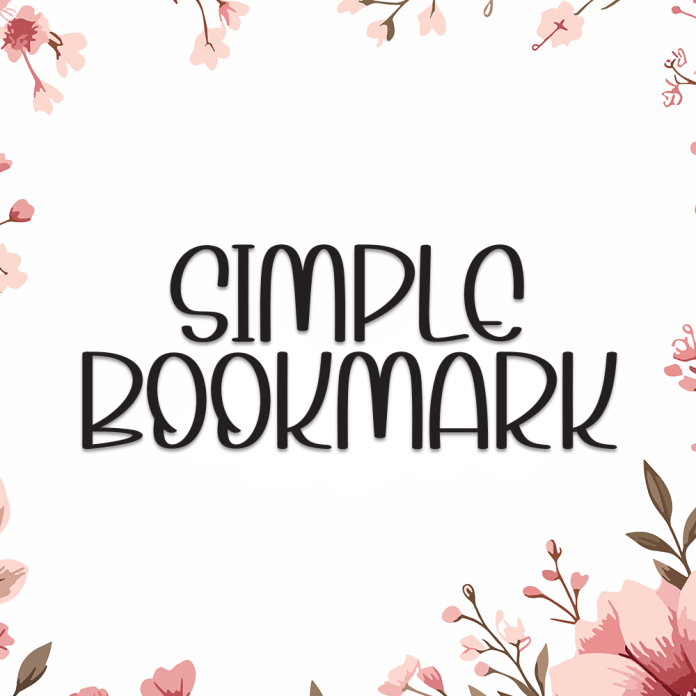
Simple Bookmark is a clean and minimalist display font that brings a touch of elegance to any design. With soft curves and friendly shapes, it’s perfect for branding, book covers, labels, and cozy-themed projects.
This font captures a balance between simplicity and personality — ideal for designs that need to feel both modern and warm.
Charming and easy-to-read display style
Rounded, neat letterforms
Great for stationery, headlines, quotes, or packaging
Mark your designs with style using Simple Bookmark — a font that feels like a warm hug in typography.